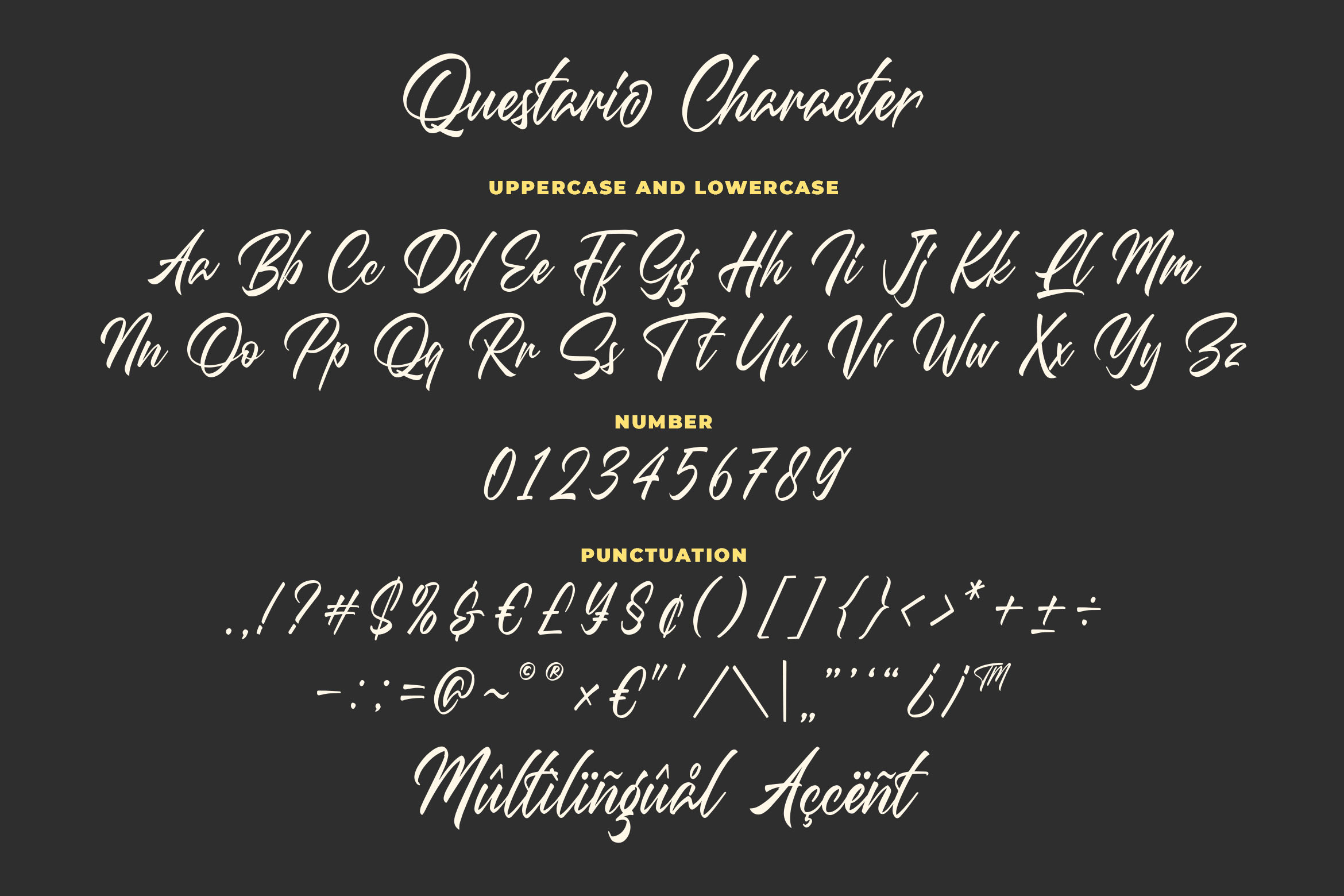
Questario - Stylish Script Font
Introducing of our new product the name is Questario Stylish Script Font. Questario inspired by Brush calligraphy this font is a fun theme very good for signature, poster, fashion, wedding, branding etc
MULTILINGUAL ACCENT :
ŽžŠŒšŸÀÁÂÃÄÅÆÇÈÉÊËÌÍÎÏÐŁÑÒÓÔÕÖØÙÚÛÜÝßàáâãäåæçèéêëìíîïłñòóôõöøùúûüýÿ